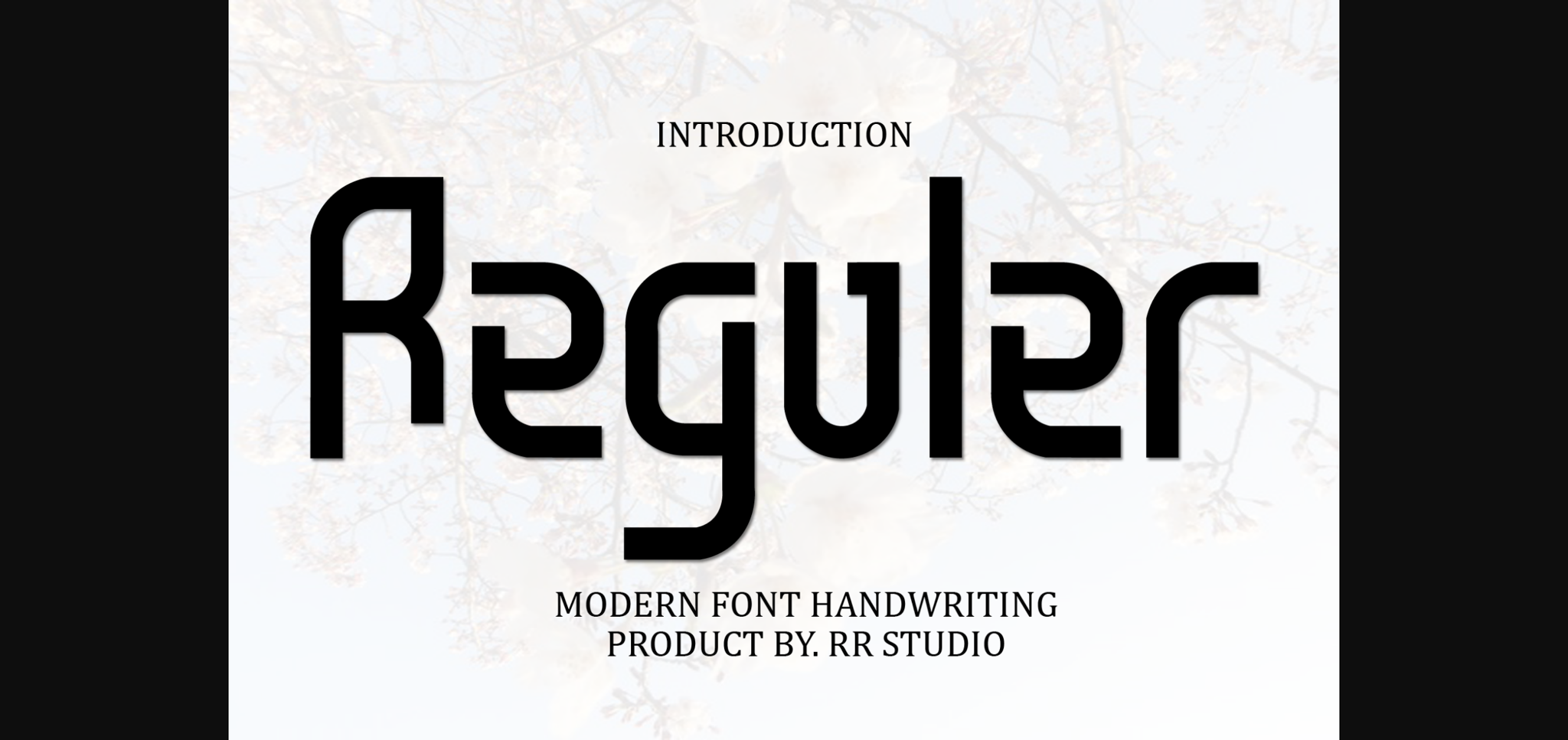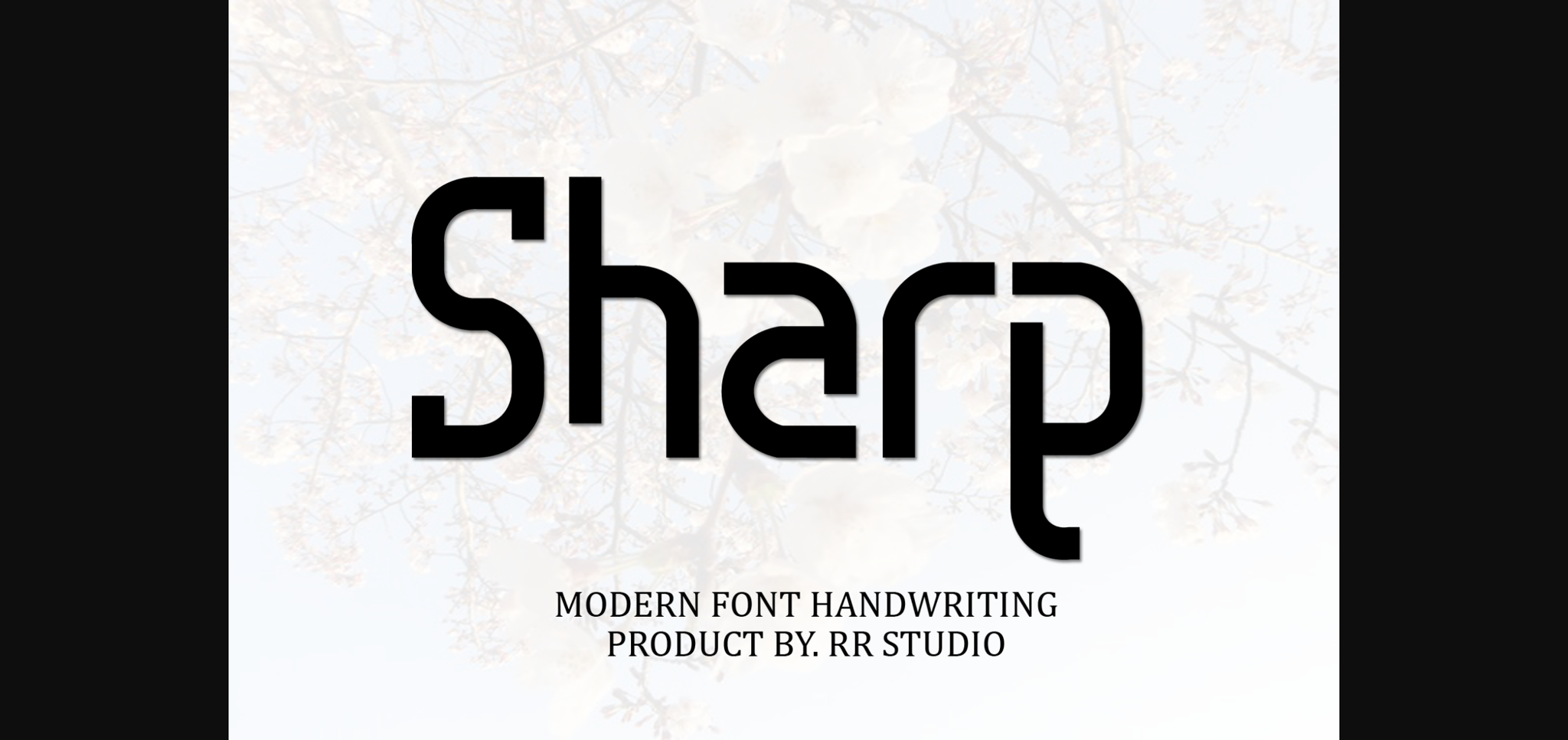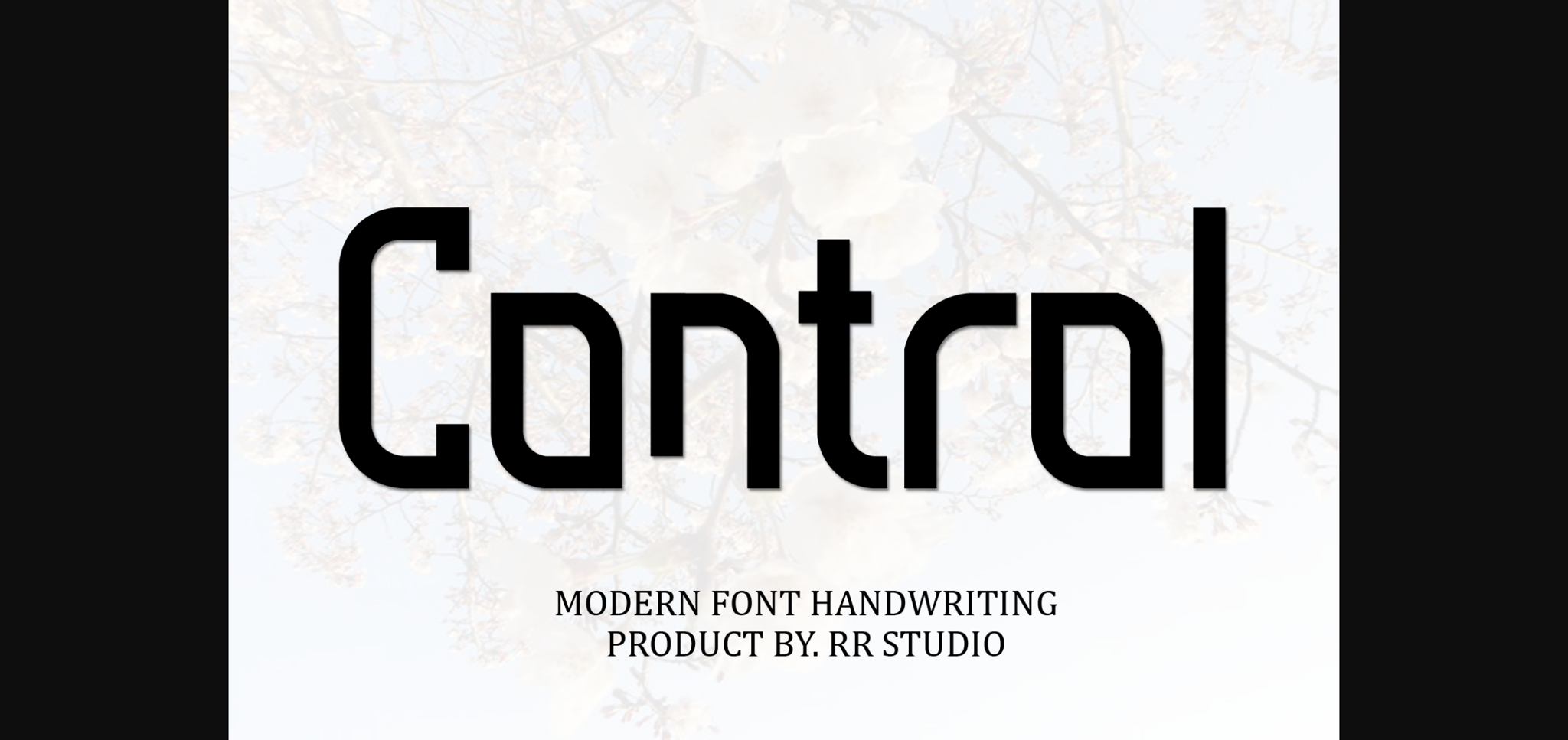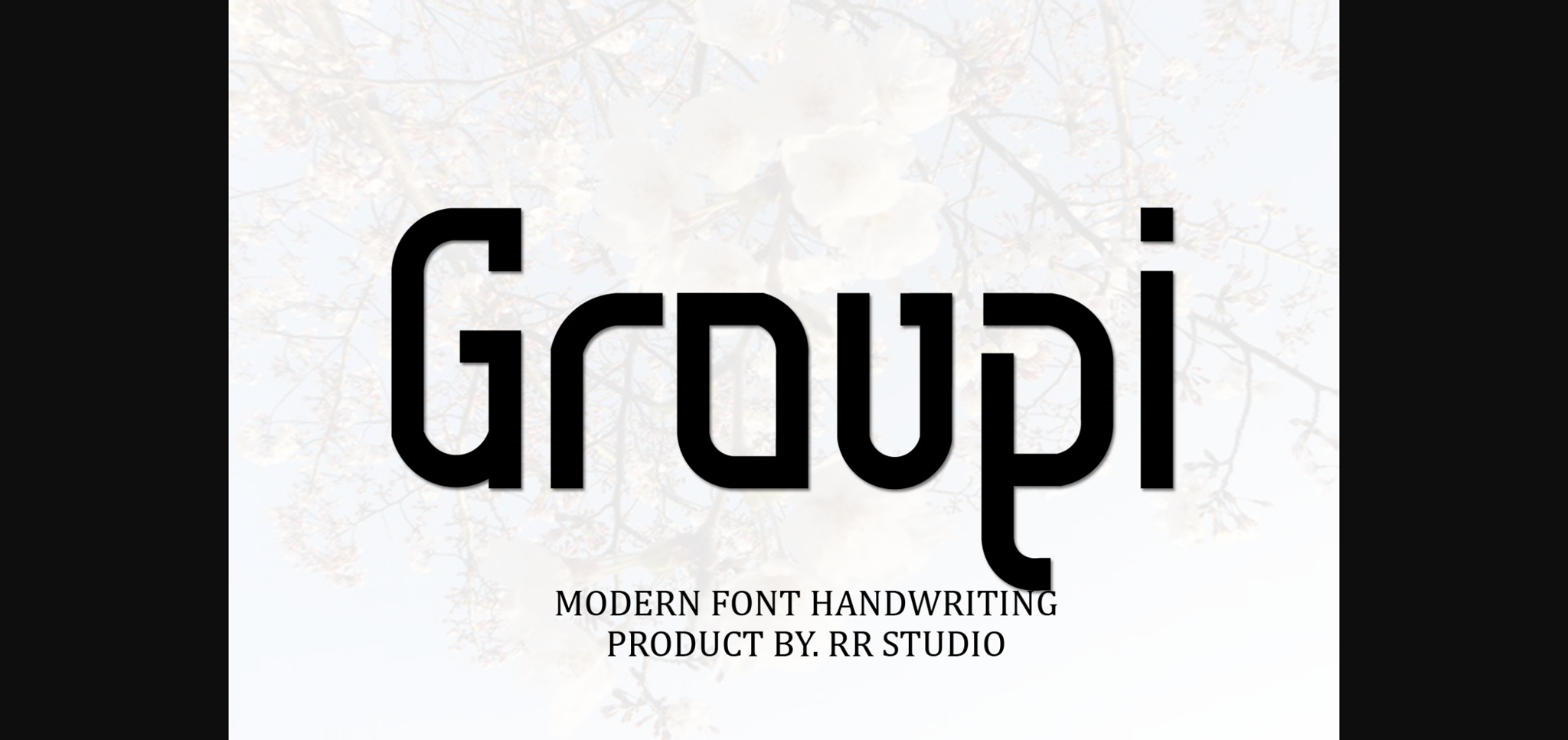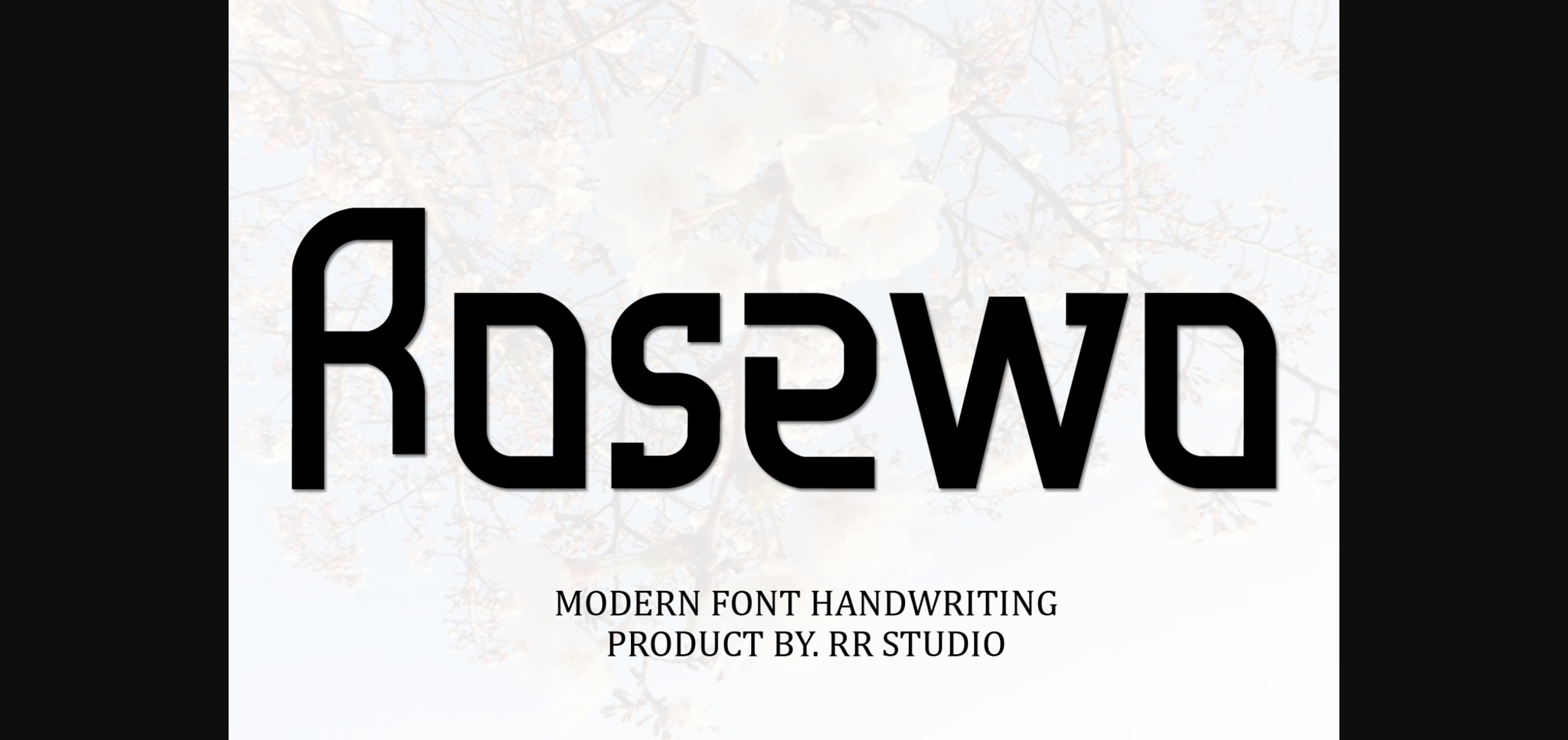
Reguler Font
About Reguler Font
Reguler is a straightforward and tidy sans-serif font that embodies simplicity and clarity. Its clean lines and balanced proportions make it perfect for various design applications, from body text in publications to headers on websites. Reguler maintains readability while offering a modern and uncluttered aesthetic for your projects.